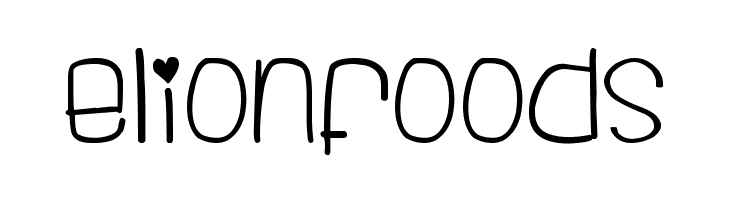
• {Tubagus Rangga Efarasti}
A playful handwritten font with heart embellishments and rounded edges.
• {Weymouth Ribbon}
• }Blush Smile{
A bold, handwritten font with playful, rounded strokes and a friendly appearance.
• ©FlareBold
• *Heart^Freaking^Tastic*
A bold, decorative font with heart motifs for a playful, romantic style.
• *Heart^Freaking^Tastic*
A playful, heart-themed decorative font with bold, whimsical characters.
• *heart2heart*
• *Jen Luvs Ben*[4ever]
A decorative font made of hearts and crosses, perfect for romantic themes.
• *Lucky Luke*
( Fonts by Alphabet & Type: Typography & Graphic - Paolo Vannucci - www.alphabetype.it )
A bold slab serif font with a classic Western style.
• *My Flutterflies* Medium